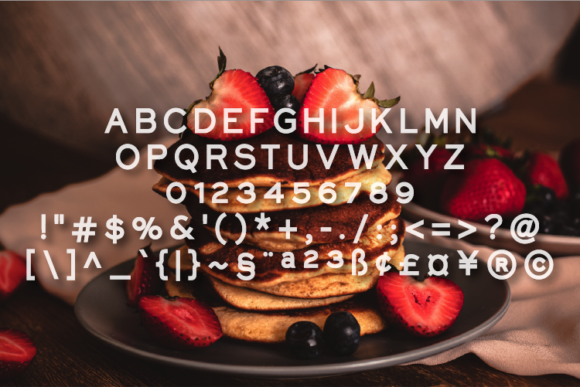
The Perfect Combination of Elegance and Modernity: Herios Font
You’ve spent hours poring over design inspiration boards, scoured through typography blogs, and tried out countless font combinations in your favorite design software. And yet, that elusive perfect font still eludes you. Maybe you’ve been searching for a font that exudes elegance and sophistication, yet still feels modern and fresh. Look no further, because we’re about to introduce you to the game-changing Herios Font.
This stunning sans serif font boasts a neat and beautiful arrangement of letters that will elevate your designs to new heights. Whether you’re working on a formal corporate project or a fun, non-formal design, Herios Font is sure to impress. Its versatility and timeless appeal make it a valuable asset for designers of all levels.
Key Features of Herios Font
- Font Family: Herios is a sans-serif font family designed for digital use, making it ideal for on-screen reading and publishing.
- Font Size: Herios is available in 8 font weights, ranging from Light to Black, allowing for flexibility in typography and design.
- Unique Characteristic: Herios features a unique blend of geometric and humanistic elements, resulting in a clean, modern, and highly legible design.
- Language Support: Herios supports a wide range of languages, including Latin, Cyrillic, Greek, and many others, making it suitable for global publishing and design projects.
Herois Font Review
I’ve had the chance to work with the Herois Font, and here’s my honest take on it.
- ✨ Unique Design: Herois Font has a distinctive, bold design that catches the eye. It’s perfect for headlines and titles where you want to make a statement.
- ✨ Versatility: The font is available in multiple weights and styles, making it easy to use across various design projects.
- ✨ Legibility: Herois Font is well-designed for digital use, ensuring clear readability on screens and printed materials.
- ⚠️ Limited Language Support: Herois Font may not support some languages, which can be a concern for international design projects.
- ⚠️ Not Ideal for Body Text: While Herois Font is great for headlines, it’s not the best choice for body text due to its bold nature and limited legibility at smaller font sizes.
Overall, I think Herois Font is a great addition to any designer’s toolkit. Its unique design and versatility make it a great choice for projects where you want to make a statement. However, its limitations, particularly in terms of language support and body text, mean it’s not a one-size-fits-all solution.
Lato is a sans-serif font designed by Łukasz Dziedzic. It is a versatile font suitable for both digital and print media. Lato is similar to Herios Font in its friendly and approachable nature, but it has a more rounded feel and is better suited for body text.